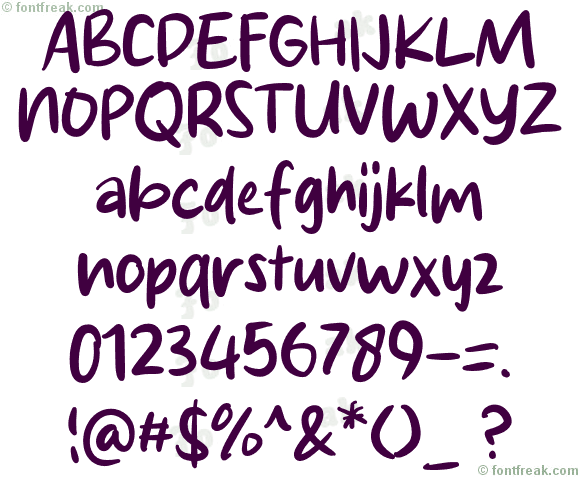
Fresh Salmon
The Fresh Salmon font by MJType is a delightful handwritten typeface that exudes a sense of playfulness and charm. With its casual, organic strokes, this font captures the essence of creativity and freshness, making it an excellent choice for a variety of design projects. The stroke weight is intentionally varied, which adds a dynamic feel to the letterforms, while the slightly irregular shapes lend an authentic, hand-drawn aesthetic that stands out in any setting. The spacing between characters is thoughtfully designed to ensure readability, making it suitable for both large headings and smaller text.
Fresh Salmon is particularly well-suited for wedding invitations, where its whimsical nature can enhance the romantic atmosphere. Additionally, it is perfect for restaurant menus, where it can convey a warm and inviting tone that resonates with diners. Graphic designers may find this font ideal for crafting unique branding materials, such as logos and business cards, as it embodies a friendly and approachable vibe. Content creators can also utilize it in social media graphics, where eye-catching visuals are crucial for engagement.
The target audience for the Fresh Salmon font includes graphic designers, small business owners, and content creators who are seeking to infuse their projects with a touch of personality. This font's versatility allows it to adapt to various themes, from rustic to modern, enhancing the overall visual impact of any design.
In conclusion, the Fresh Salmon font stands out not only for its artistic flair but also for its practicality in diverse applications. Whether you're looking for a font that brings warmth to a wedding invitation or adds character to a restaurant menu, the Fresh Salmon font free download offers a unique solution that will elevate your creative projects.